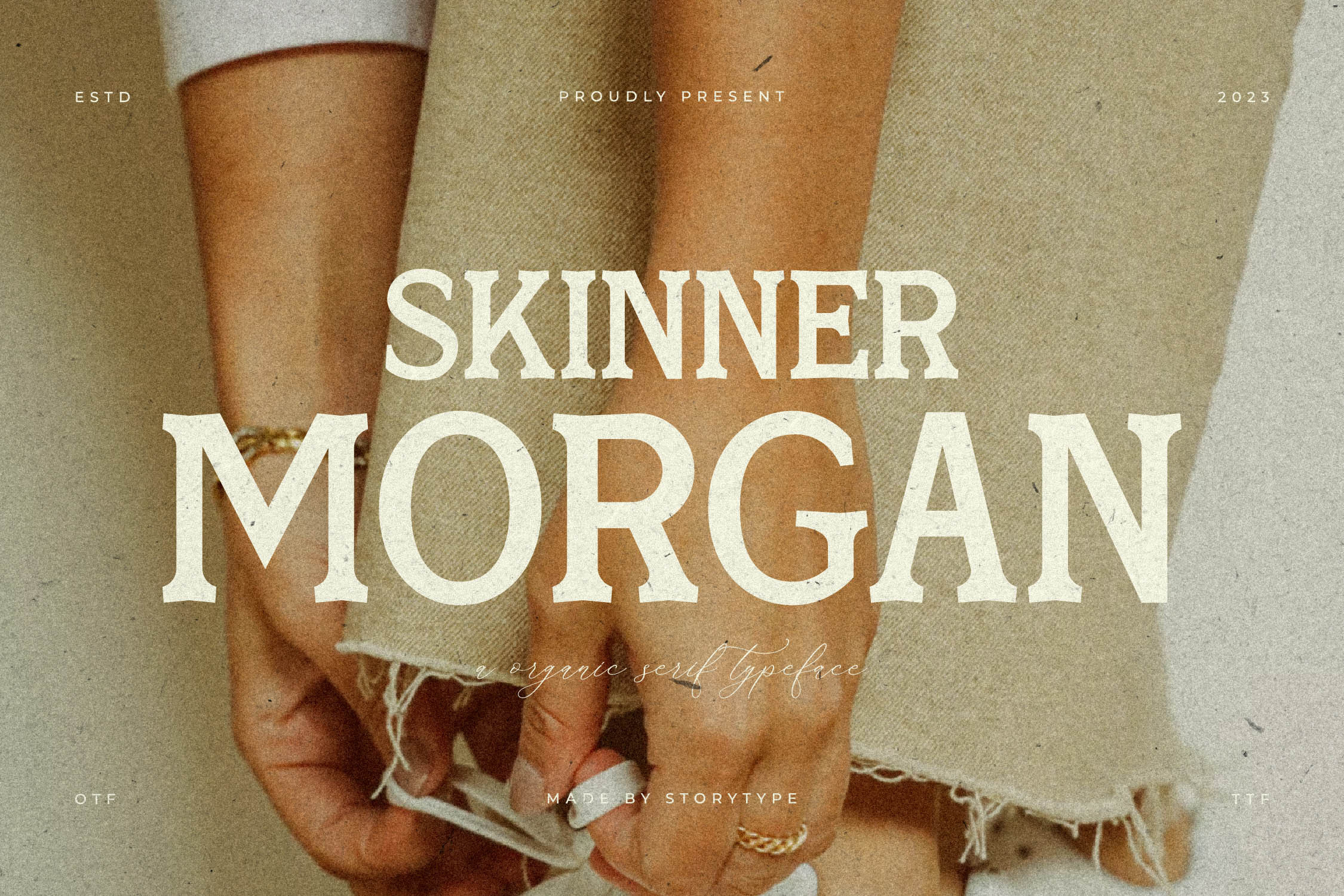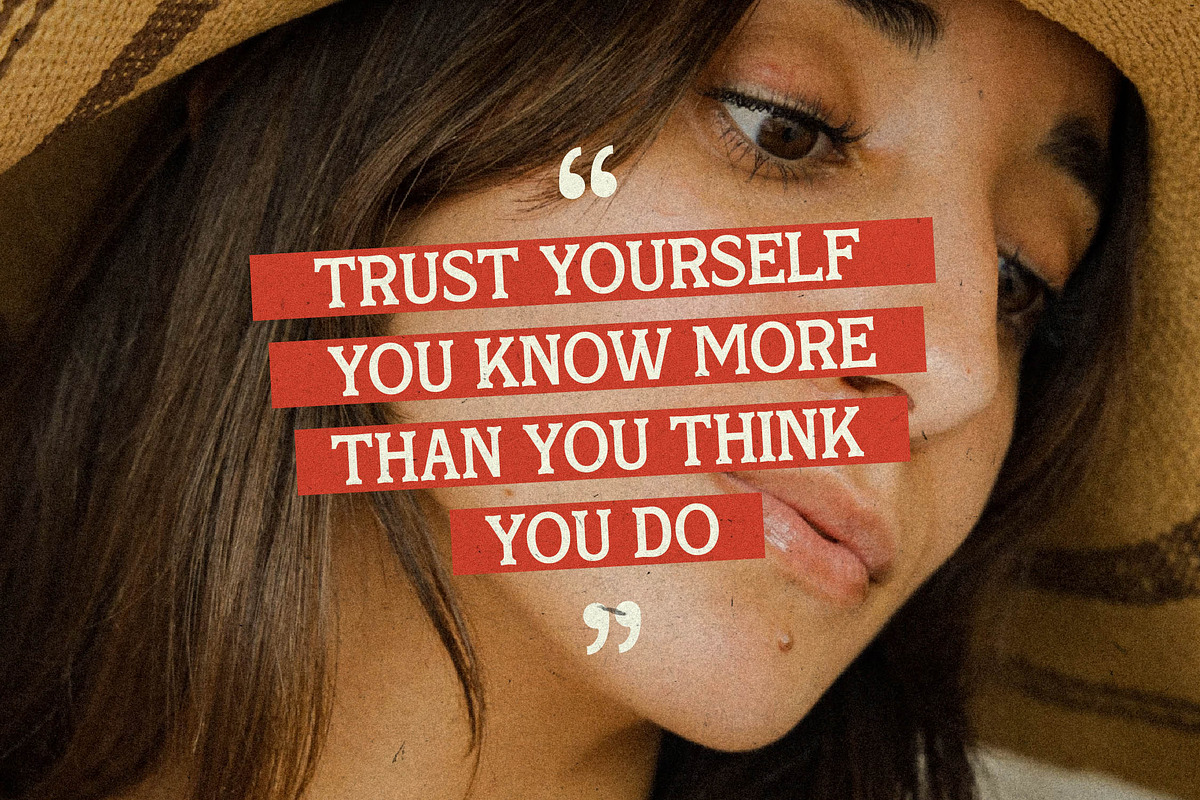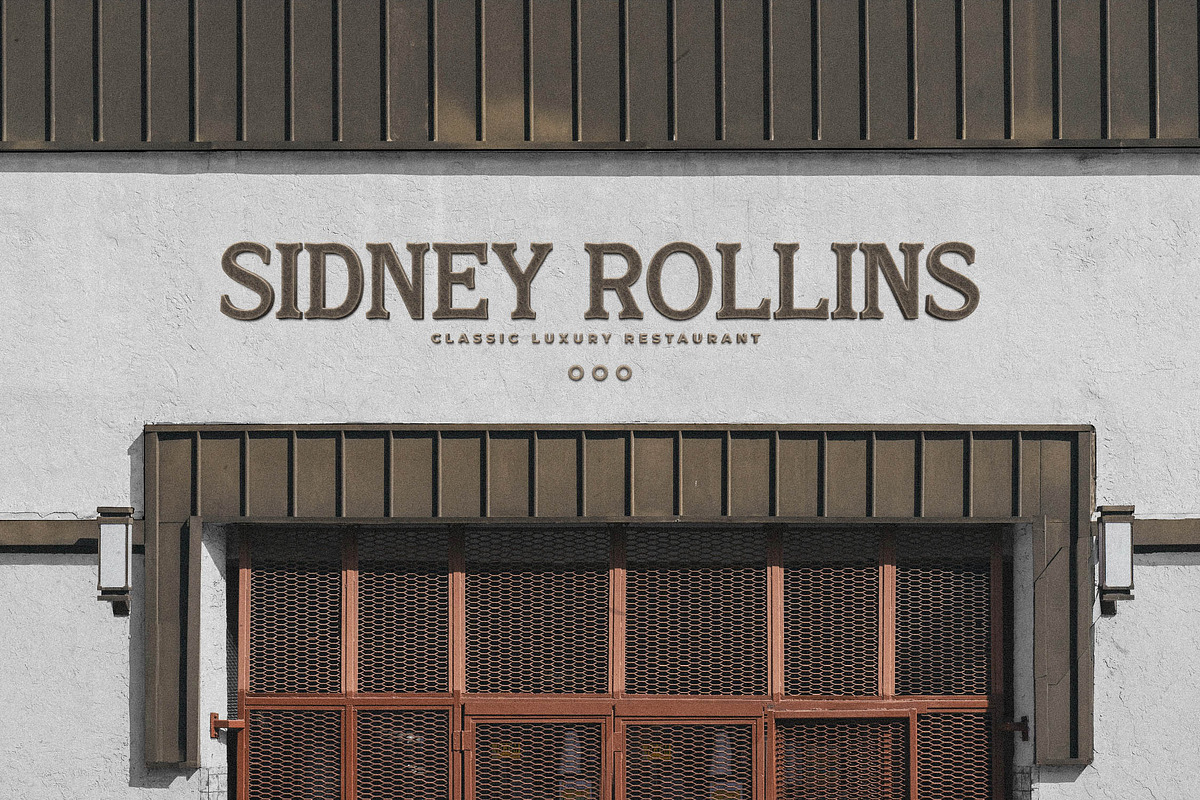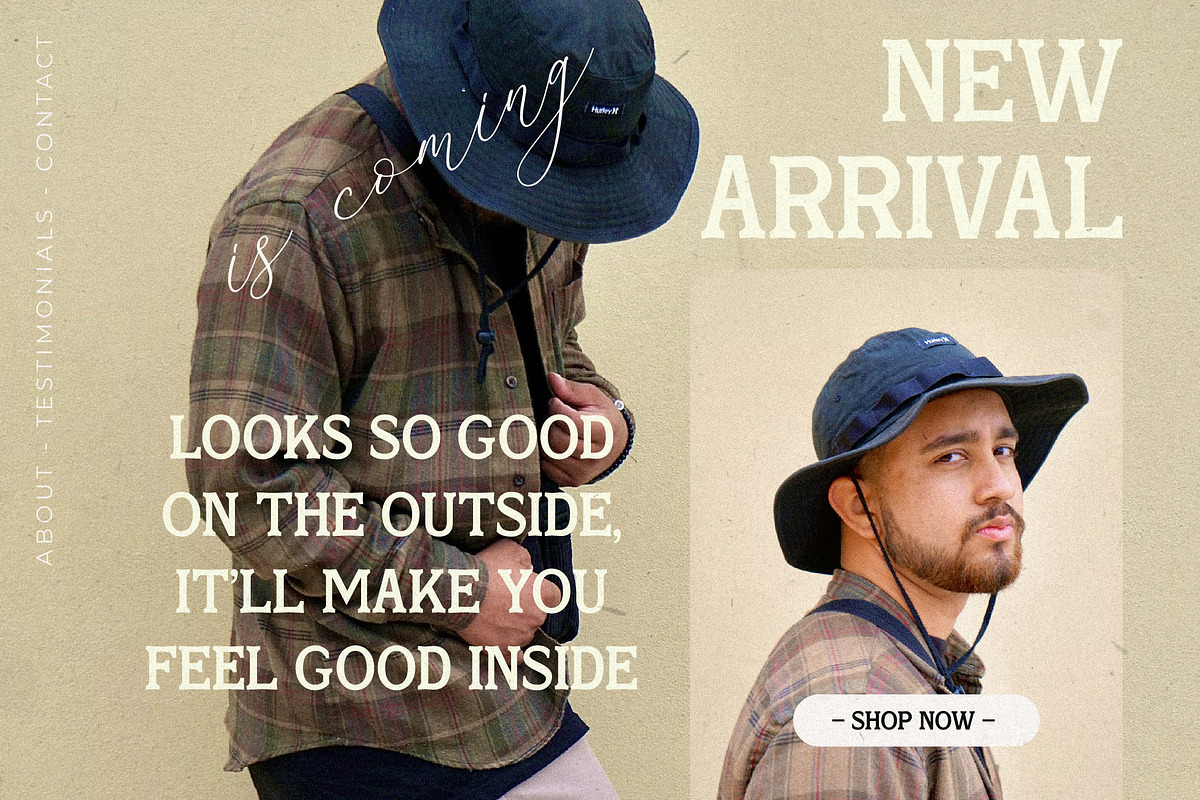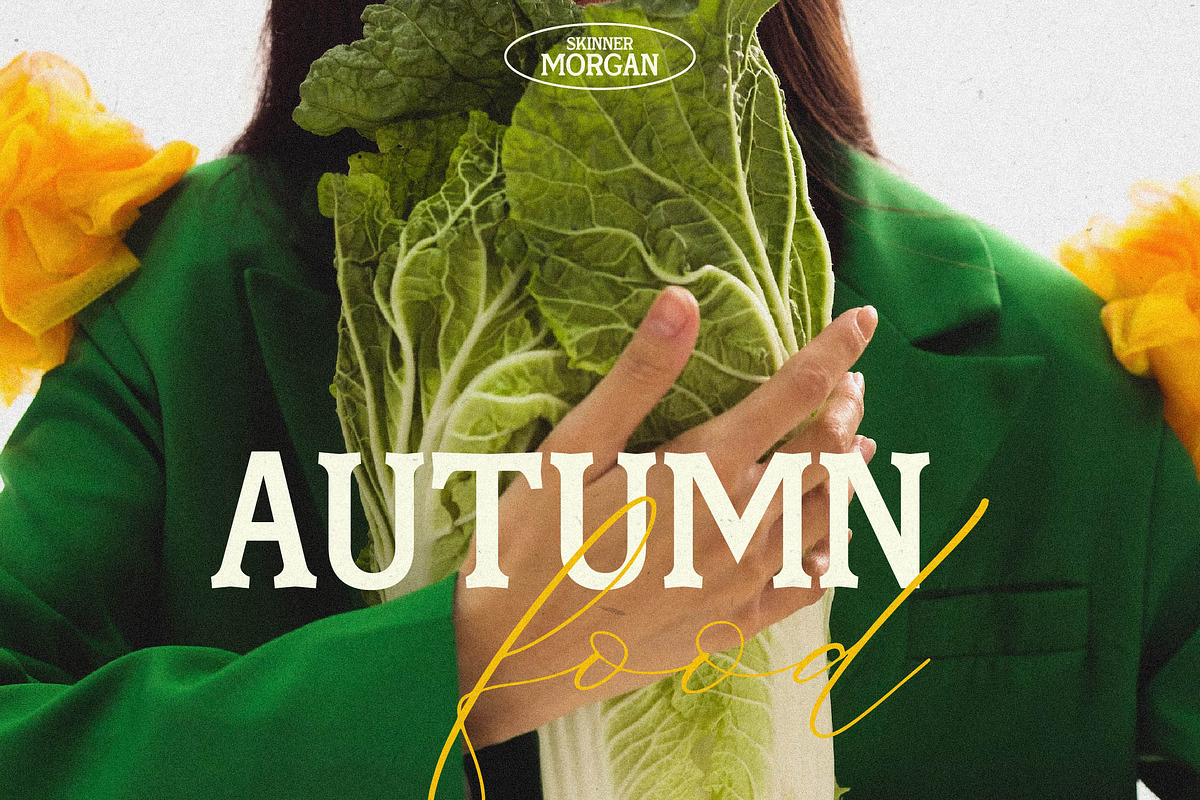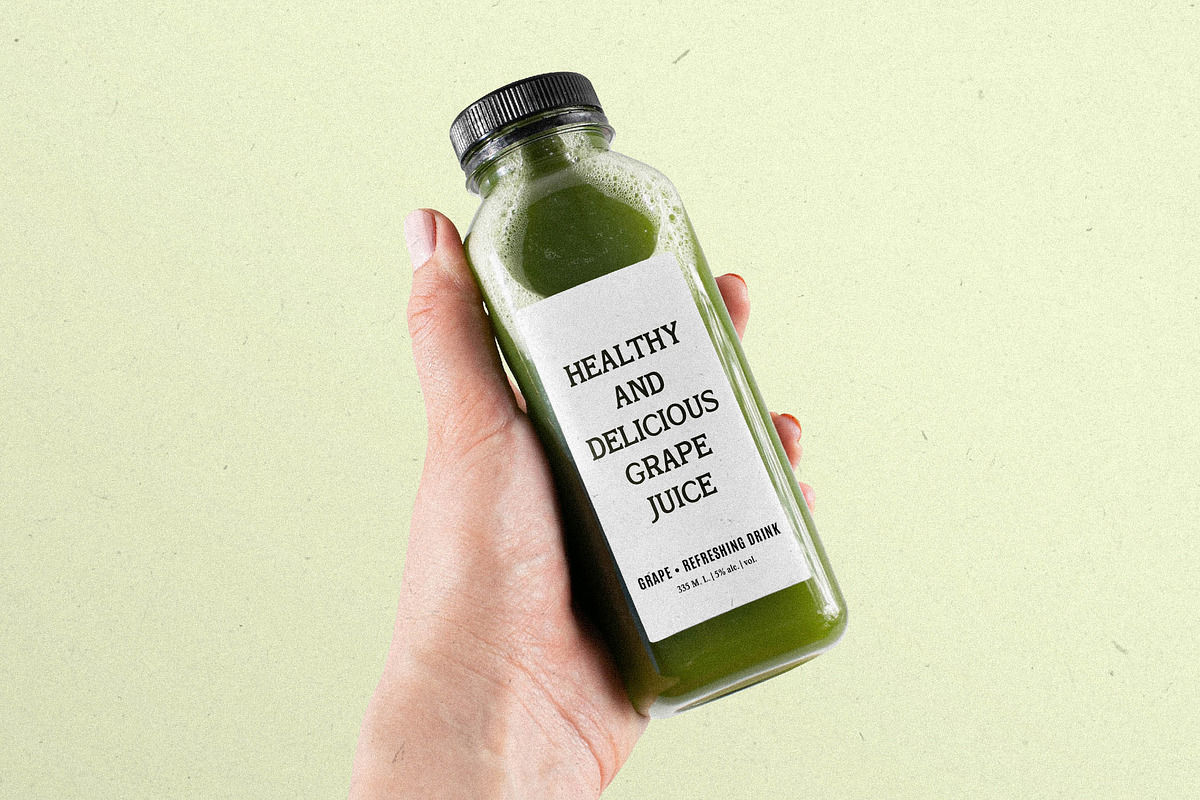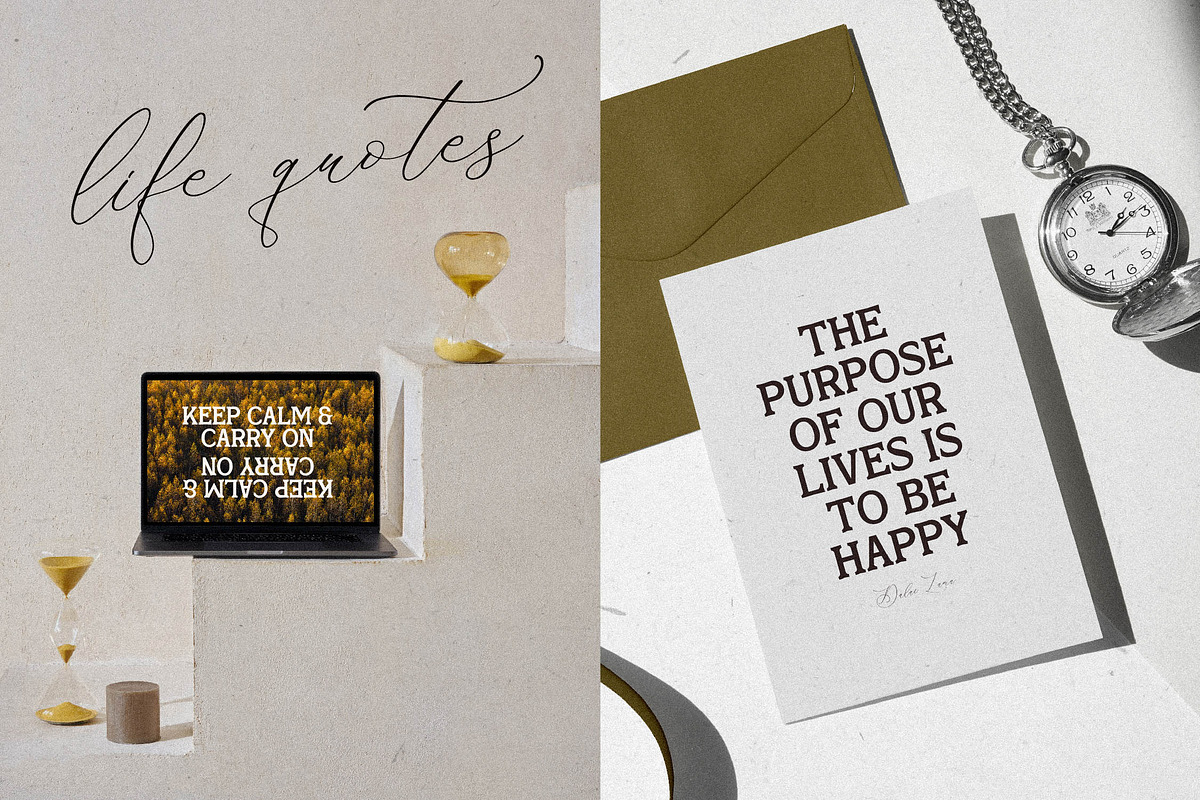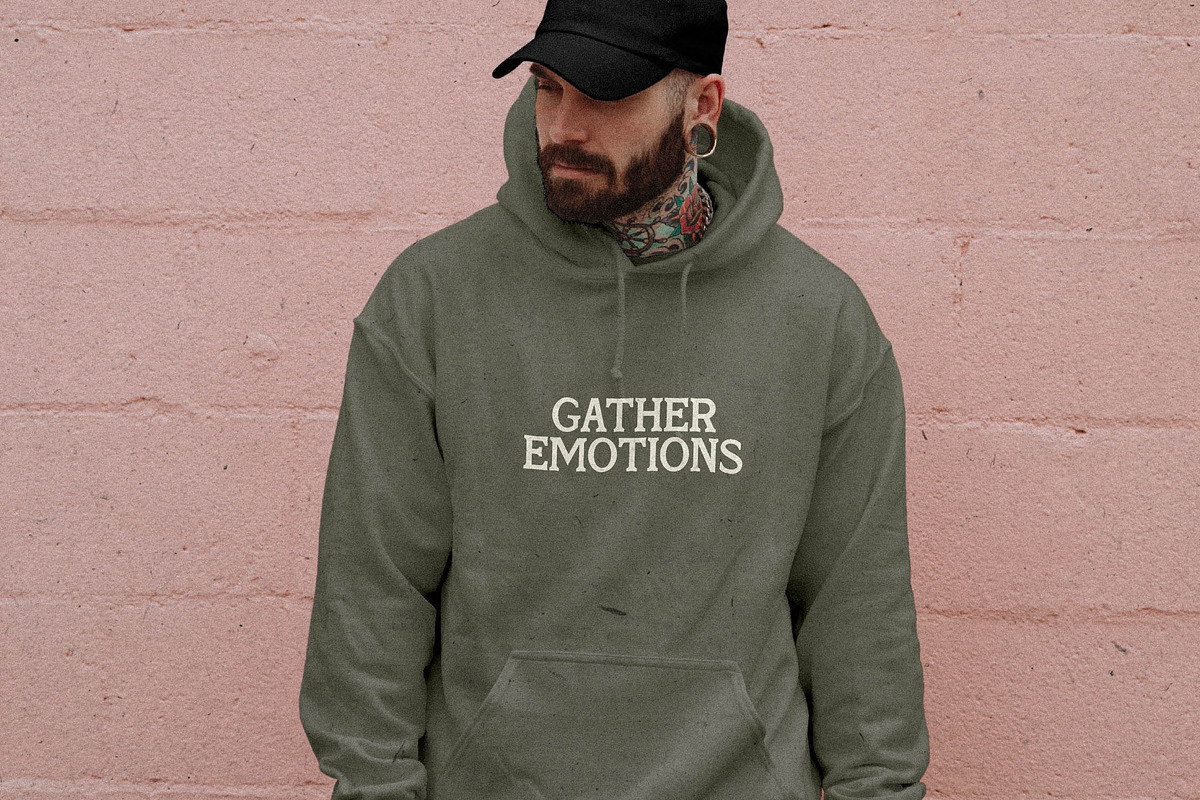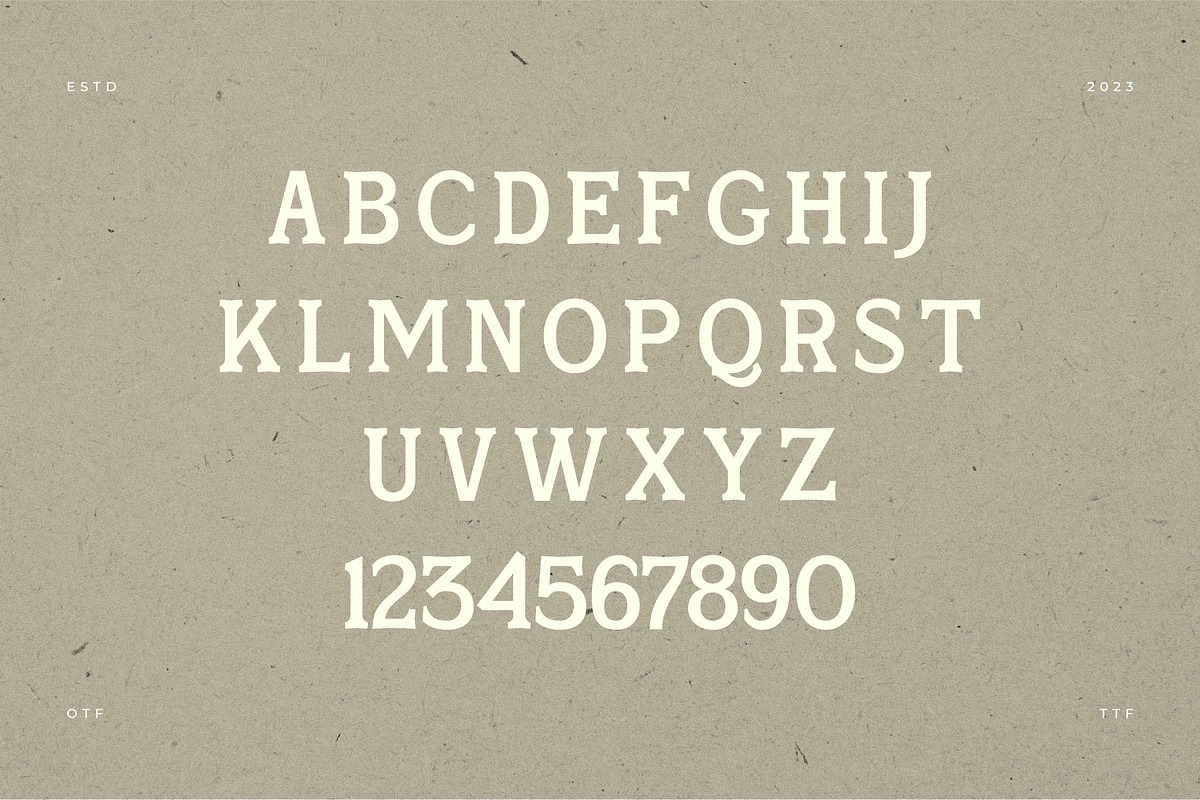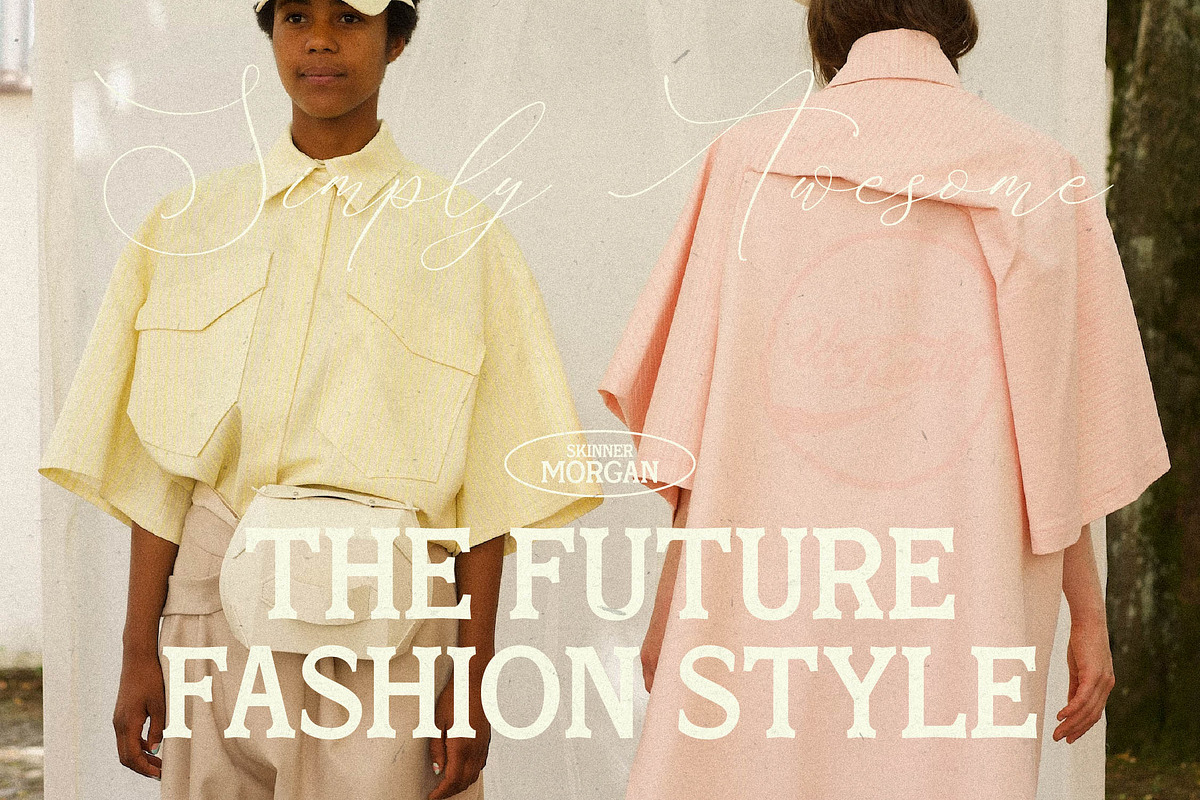
Skinner Morgan A Organic Typeface
Proudly present Skinner Morgan Typeface , created by Storytype, A serif modern and classic typeface that has own unique style & modern look. This typeface is perfect for an elegant & luxury logo, book or movie title design, fashion brand, magazine, clothes, lettering, quotes, and so much more.